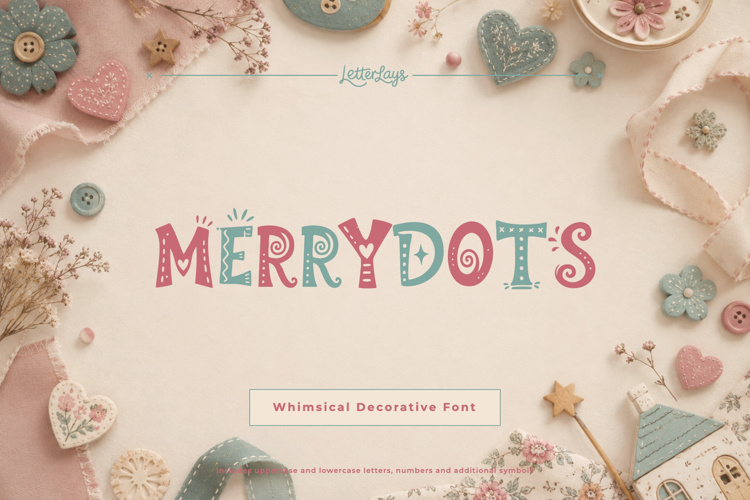
Merry Dots Font
✦ MerryDots Free is a limited personal-use demo of the full MerryDots typeface by Letterlays. Create cheerful nursery prints, birthday invitations, playful packaging, and cute classroom graphics with MerryDots, a dotted kids display font.
🎨 Style notes: 🌈 MerryDots is a playful kids display typeface designed for cheerful branding, nursery design, and cute printed goods.
🔤 This demo includes uppercase Latin letters, numerals and selected basic punctuation for personal mockups, layout tests and concept work.